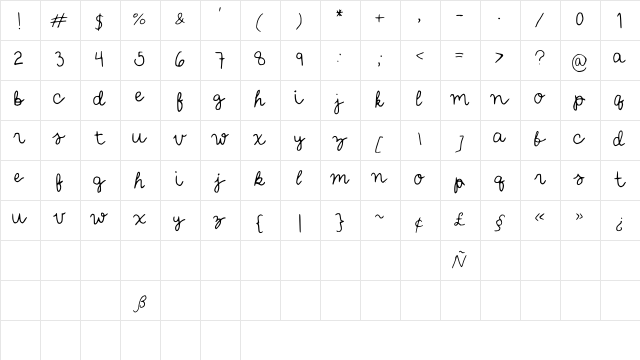
IYSForeverandEver Medium Font Preview
IYSForeverandEver Medium
Design Context for IYSForeverandEver Typeface
IYSForeverandEver is a composed and adaptable typeface that performs quietly and consistently across a wide range of design contexts.
Pro Tip: Pair IYSForeverandEver with a font of contrasting weight or personality to build a more expressive typographic hierarchy.